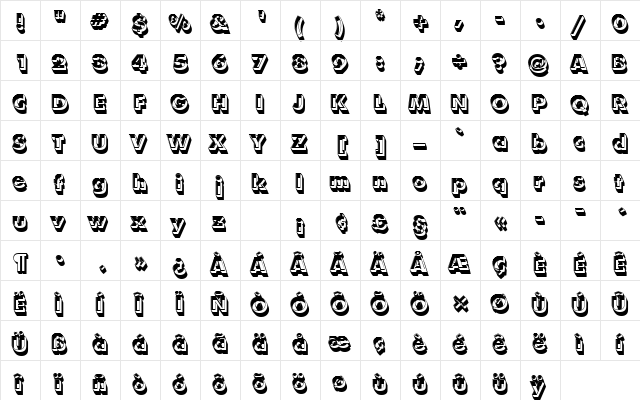
FuturaShaDExtBolSh1 Regular Font Preview
FuturaShaDExtBolSh1 Regular
Design Context for FuturaShaDExtBolSh1 Typeface
FuturaShaDExtBolSh1 channels digital-age aesthetics through its sharp, structured letterforms — ideal for brands that want to signal innovation.
Pro Tip: Try FuturaShaDExtBolSh1 with generous letter-spacing in UI labels and navigation — the geometric forms benefit from room to breathe.